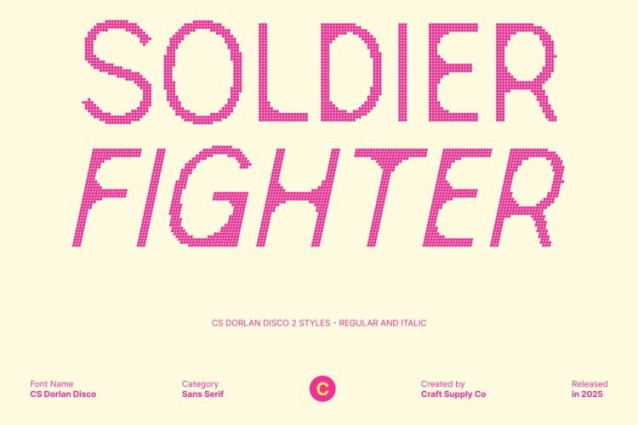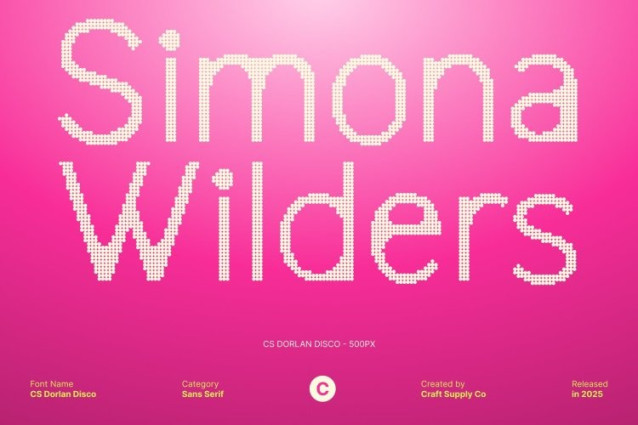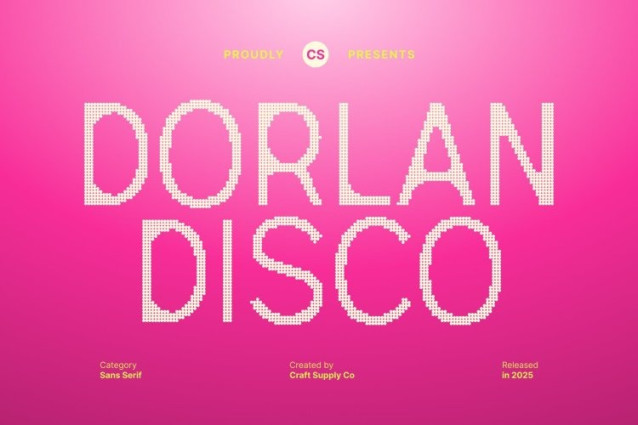
Dorlan Disco Font This is a modern sans serif font designed to deliver clarity and style. Its clean, balanced shapes create a polished and professional look, ensuring your designs feel contemporary, confident, and visually striking. Perfect for projects that need precision combined with personality.
Disco Effects for Glittering Impact
The font’s disco effects add sparkle, shine, and dynamic energy to every character. This dazzling detail transforms ordinary text into vibrant, attention-grabbing typography, making your designs feel alive, glamorous, and full of motion.
Ideal for Glittering, Eye-Catching Designs
This font excels in display applications where visibility and flair are essential. From posters and event promotions to branding and creative campaigns, the font adds a glittering focal point that instantly captivates the audience.
Stylish, Modern, and Energetic
Combining modern sans serif structure with shimmering disco accents, this font delivers a typeface that feels both sleek and lively. Its sparkling appearance makes it a perfect choice for designers seeking to create contemporary, glamorous, and visually dynamic projects.